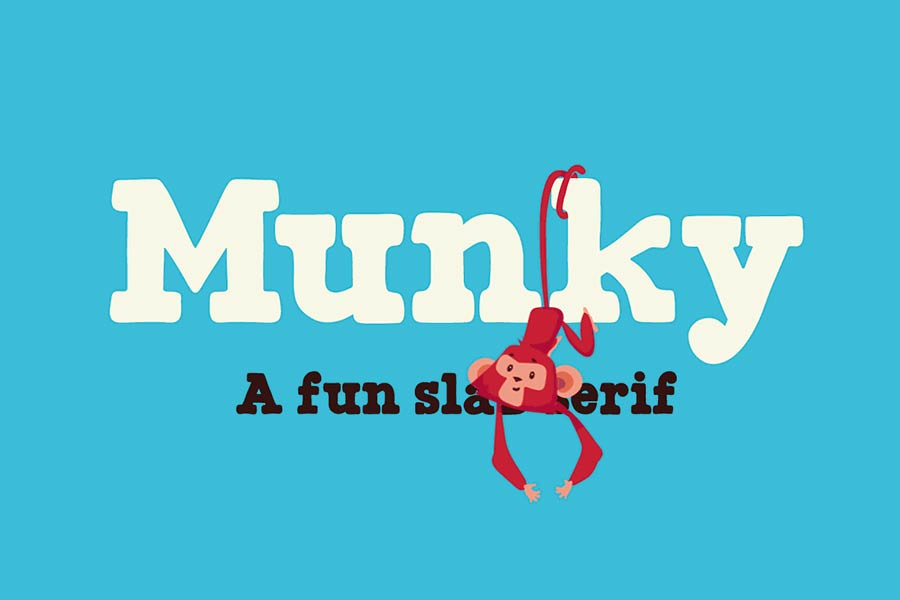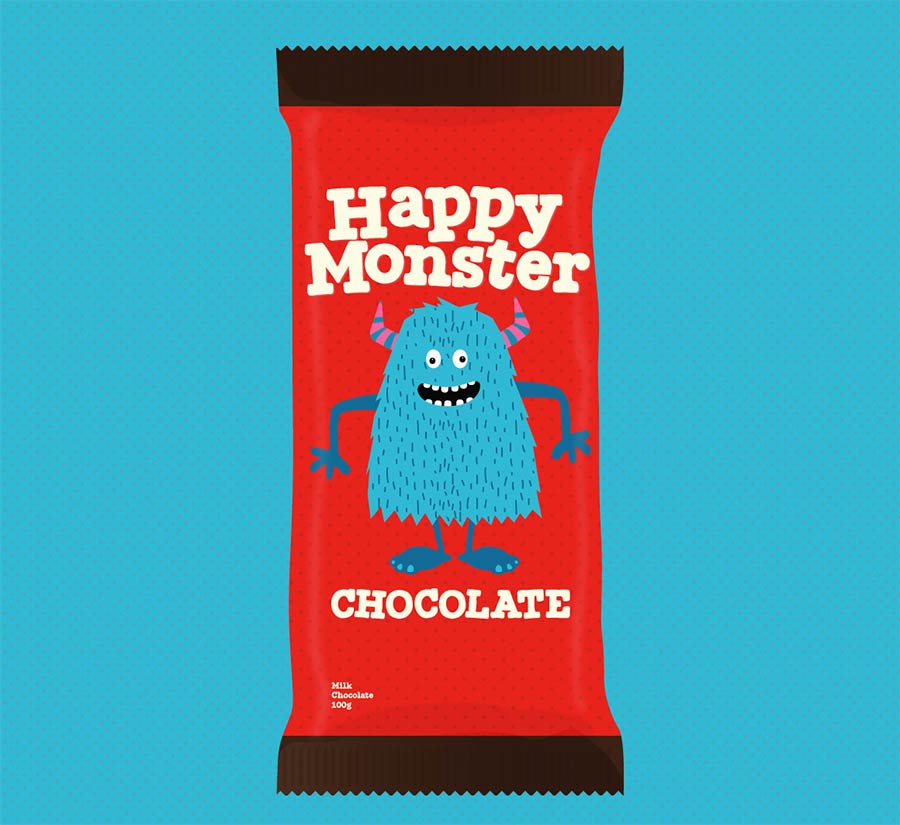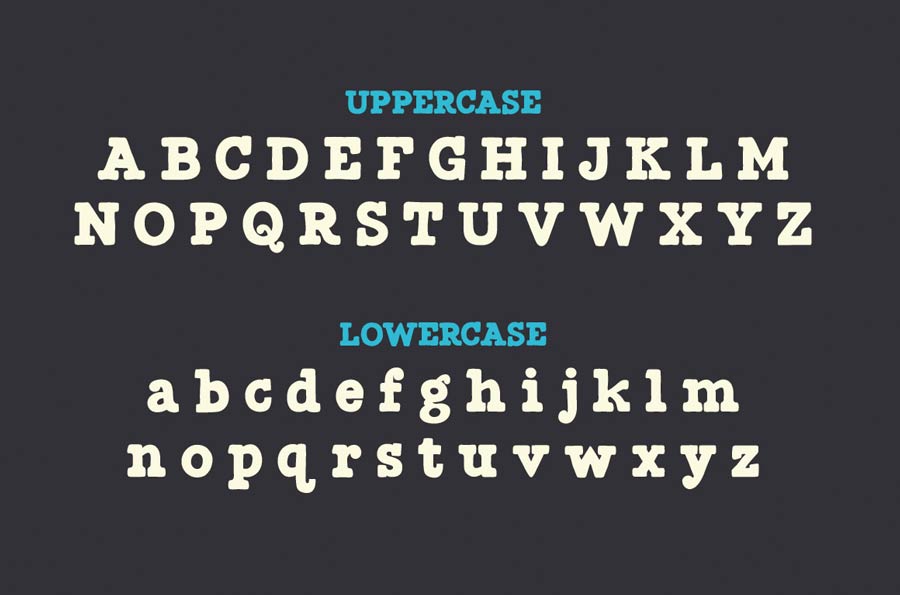
Munky is a friendly display font that is perfect for headlines and titles. It works well on cheerful, cartoony and casual kind of design styles, especially for food packagings, story book designs, birthday party invitation cards and many more. The free font comes with only the uppercase characters, but you can pay a small fee to get the full commercial font.
- Designer: Simon Stratford
- Category: Display, Playful